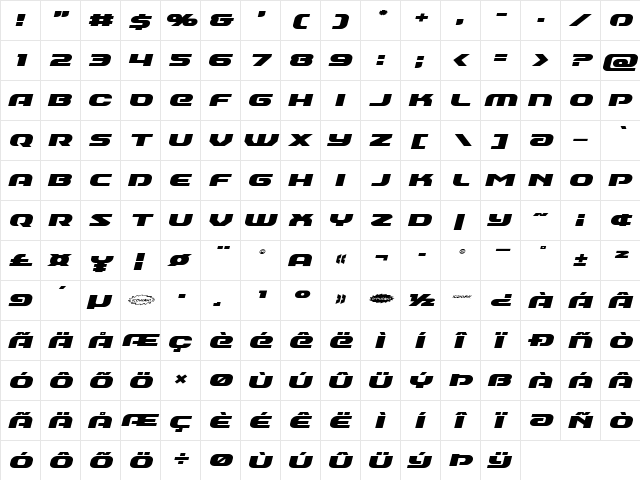
Annapolis Expanded Italic Expanded Italic
Design Context for Annapolis Expanded Italic Typeface
Annapolis Expanded Italic is a composed and adaptable typeface that performs quietly and consistently across a wide range of design contexts. The slanted form adds forward momentum and visual energy.
Pro Tip: Try Annapolis Expanded Italic for annotation and caption copy alongside an upright companion — the contrast in angle creates a dynamic but ordered typographic system.